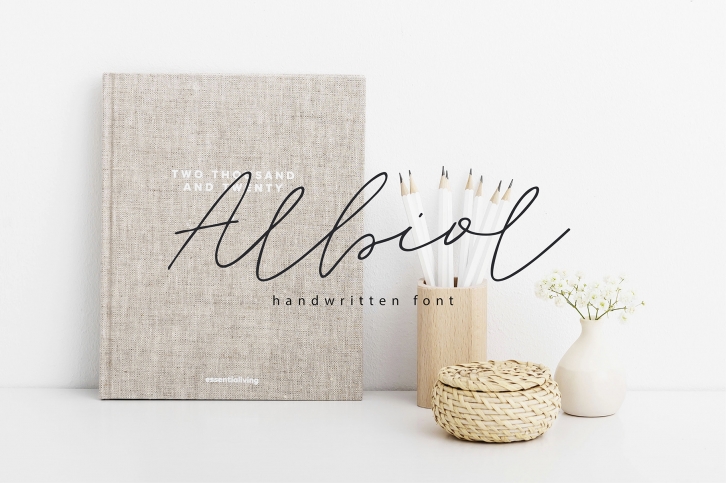
Create your own design by choosing this wonderful handwritten font. Albiol has an effortless yet refined quality, making it an excellent fit for projects of all types.
Full version of Albiol comes with uppercase, lowercase, standard punctuation, numerals, special letters for most of the European languages.